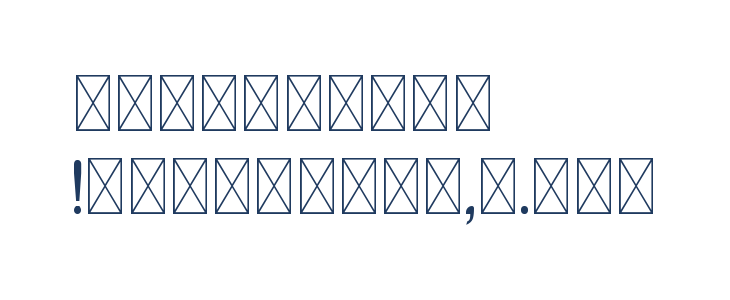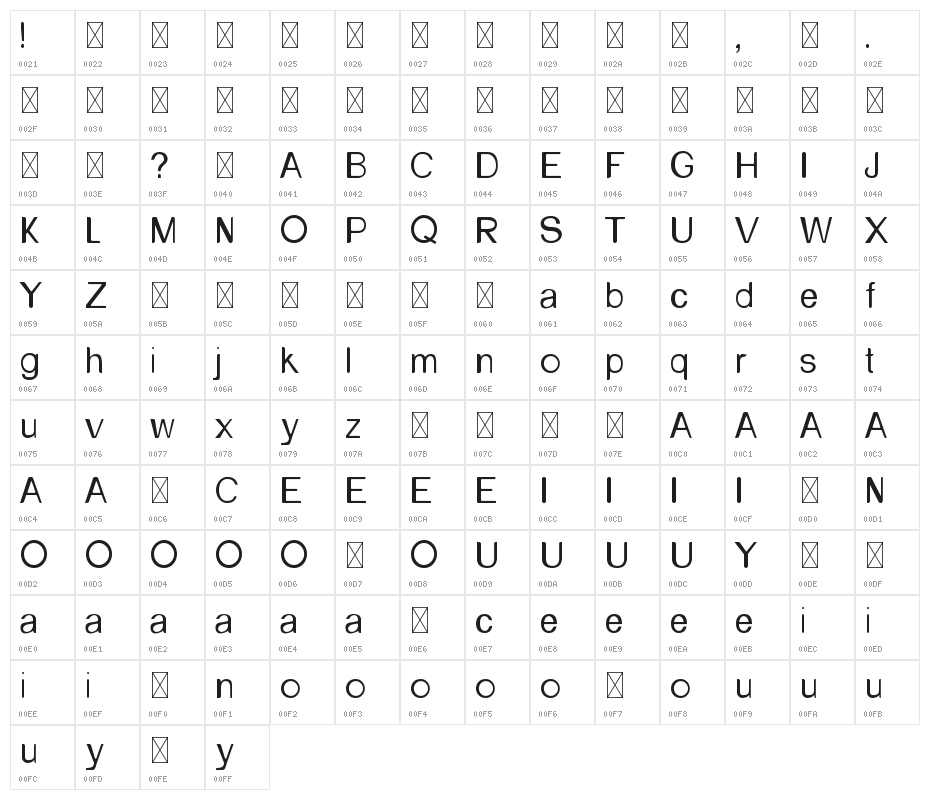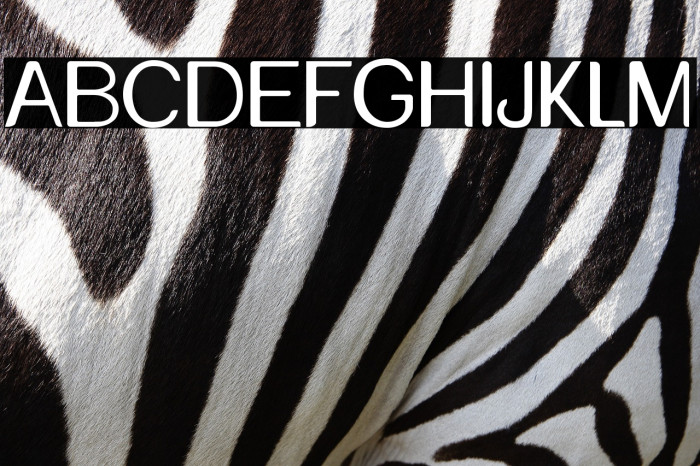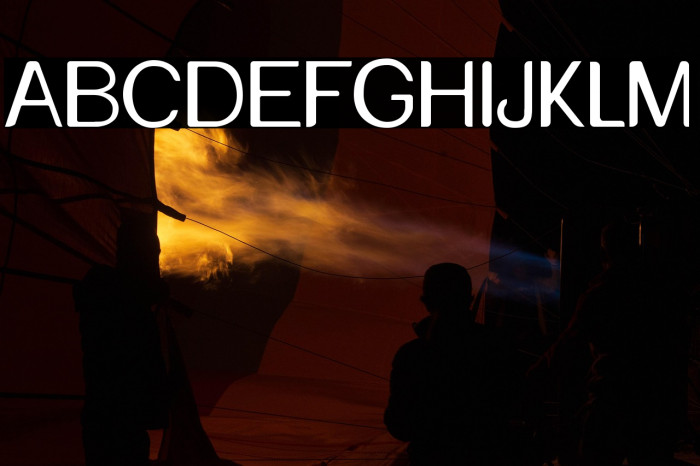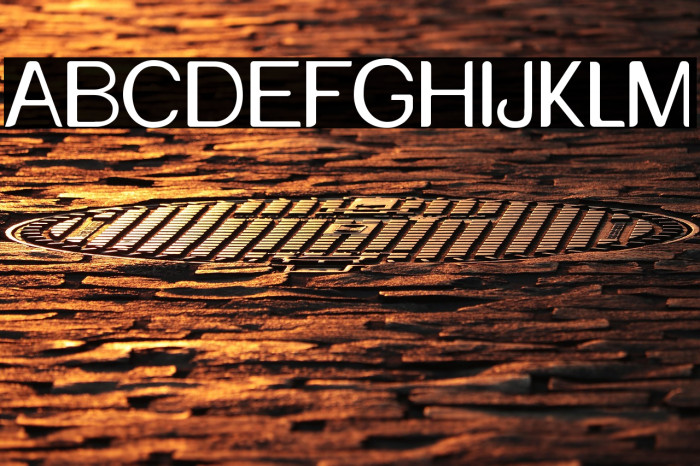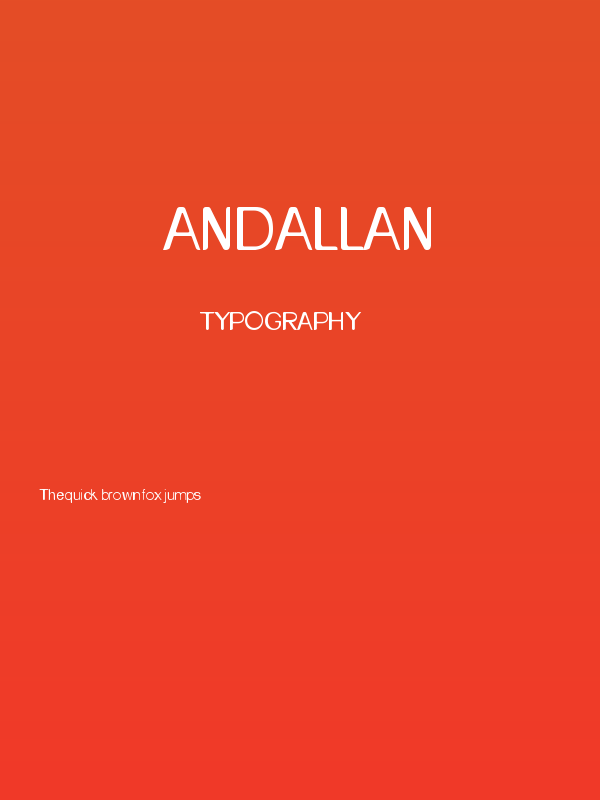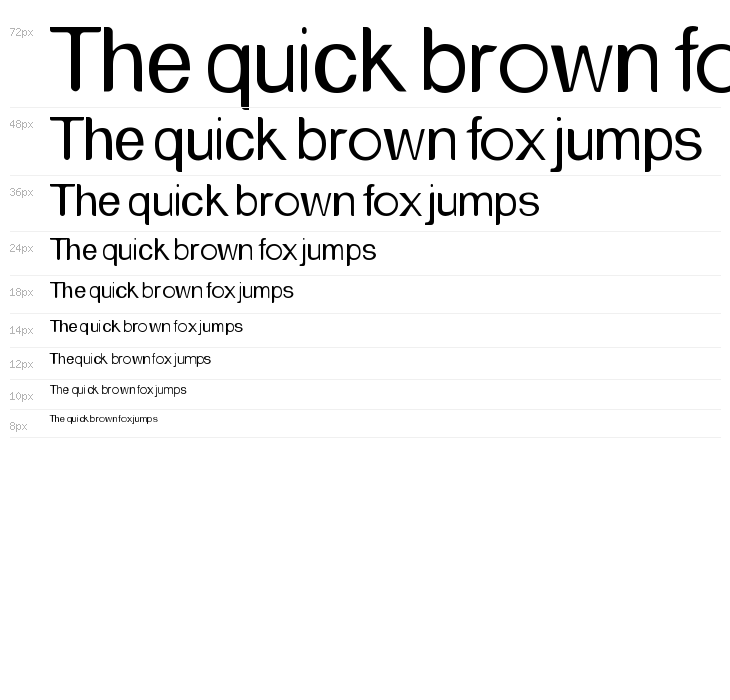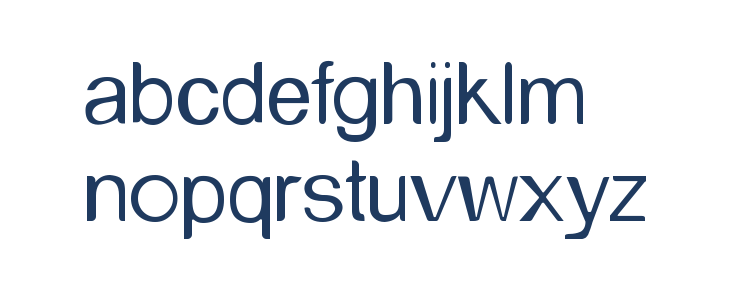
Andallan Font
Andallan Description
This font features a clean and modern sans-serif design, characterized by its uniform stroke width and geometric shapes. The uppercase letters are bold and assertive, while the lowercase letters maintain a consistent style with rounded edges that add a touch of softness. The font's simplicity and clarity make it highly legible, suitable for a variety of applications. The spacing between characters is balanced, ensuring readability even at smaller sizes. Its straightforward design is versatile, making it a great choice for both digital and print media.